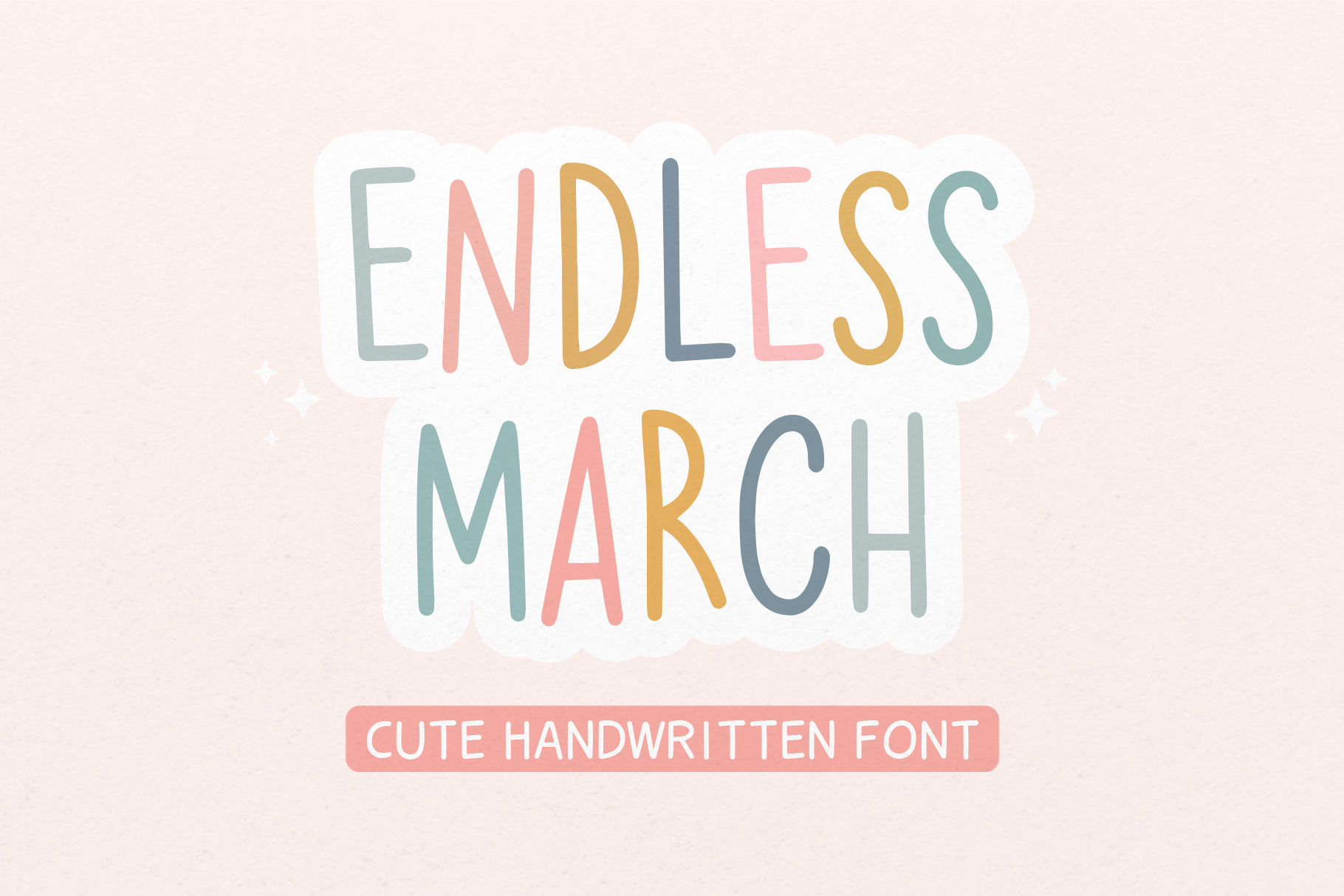
Endless March Font - Bold Font
Endless March is a delightful and whimsical font that adds a touch of playful charm to any design project. This typeface available in SVG format, compatible with advanced tools such as Cricut and Glowforge, and for use in Procreate. This cute handwriting font features a bold style that makes a statement while maintaining a sense of innocence and warmth. The characters are artfully crafted with rounded edges, exuding a friendly and approachable feel.